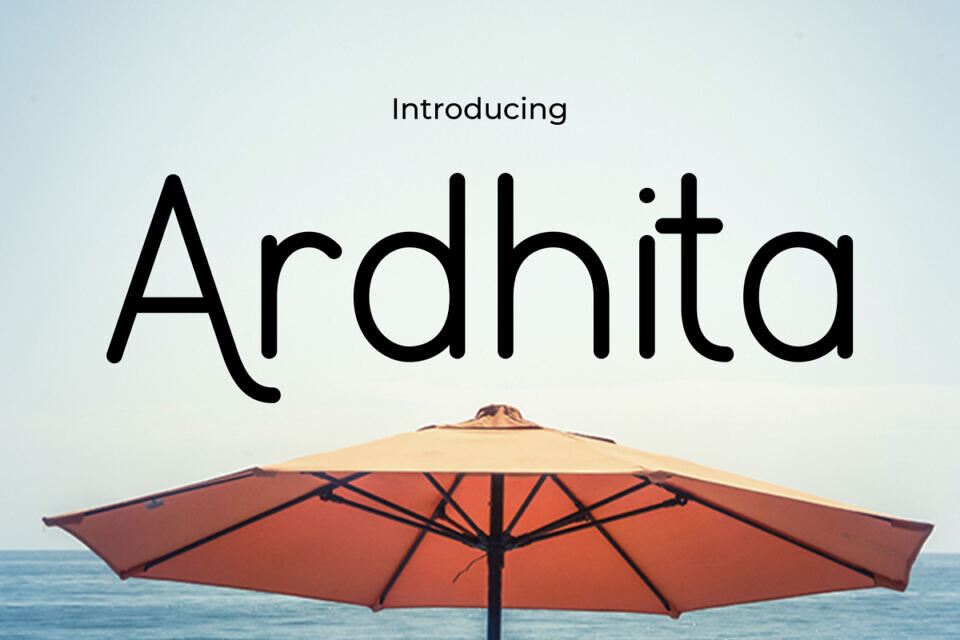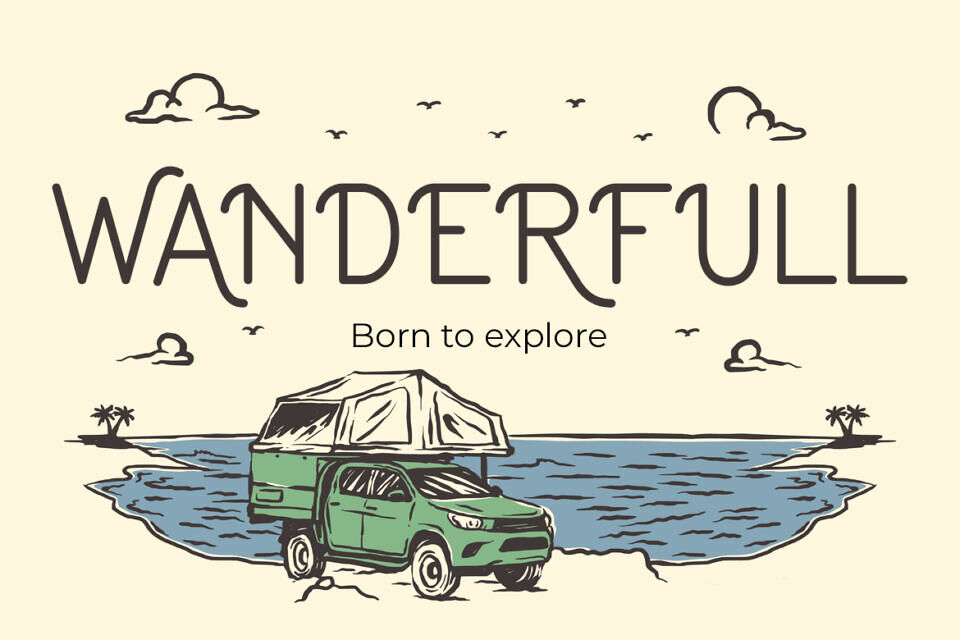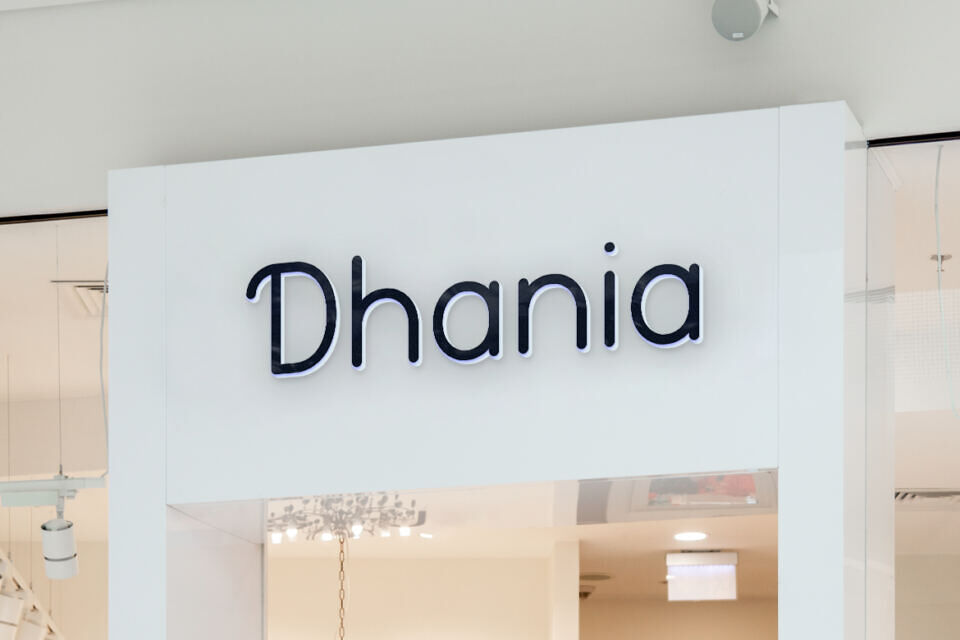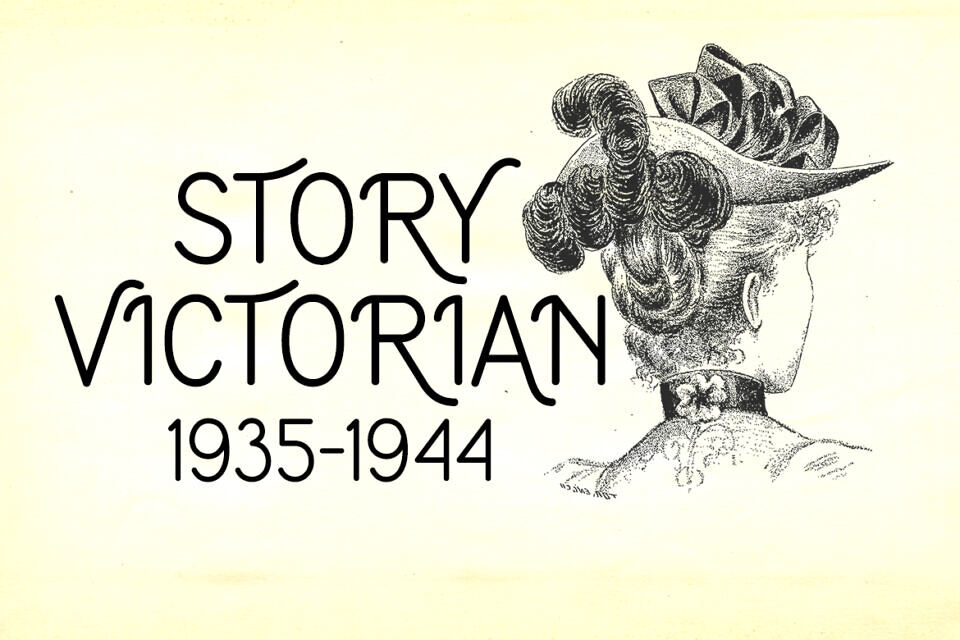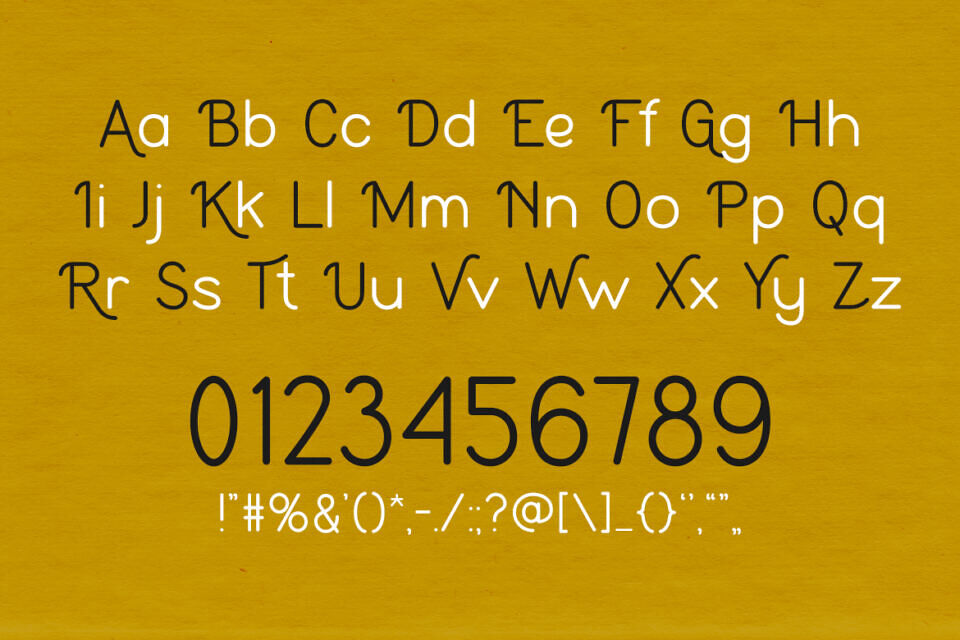
Ardhita Font
Ardhita is a sleek and minimalist typeface designed to bring clarity and personality to any design. Its simple yet stylish curves offer a clean and contemporary look, while the soft, rounded edges add a playful touch. This combination makes it an ideal font for modern designs that aim to convey both professionalism and approachability.
Ardhita works beautifully in minimalist layouts. Its understated elegance pairs well with vibrant visuals or muted palettes, enhancing the overall design without overpowering other elements. Whether you’re creating a website header, a logo, or stylish editorial content, this font adds a modern and fresh vibe to your work.